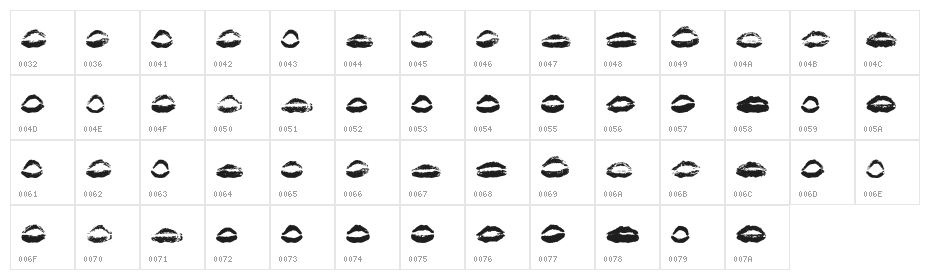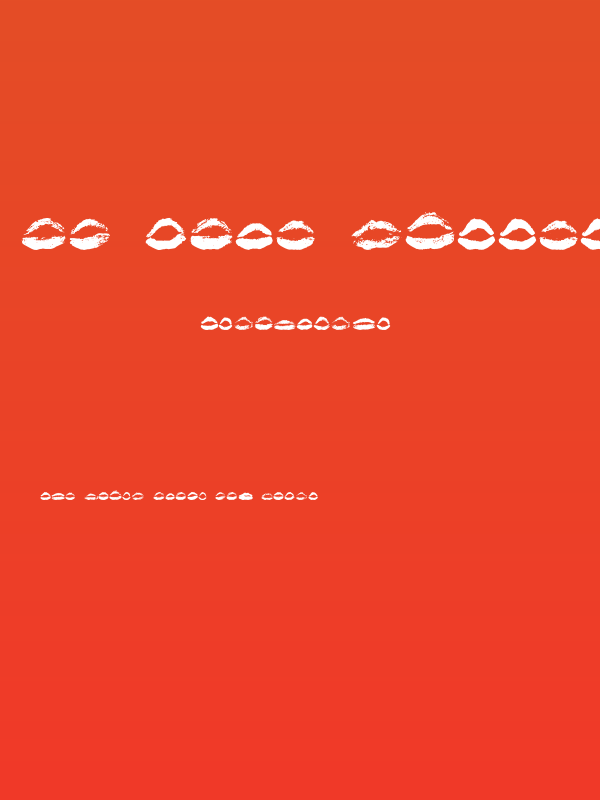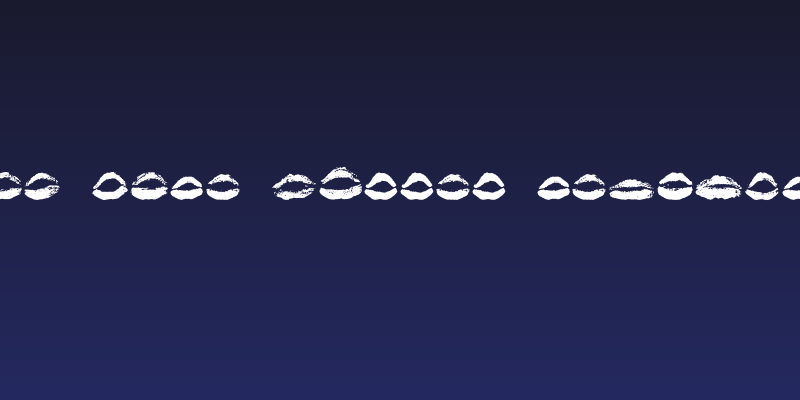
26 More Kisses Regular Font
26 More Kisses Regular Description
This unique and playful font is composed entirely of lip print shapes, creating a whimsical and artistic effect. Each character is represented by a distinct lip imprint, offering a textured and organic appearance. The font is highly decorative, making it ideal for creative projects that require a touch of fun and personality. Its bold and expressive style captures attention, making it suitable for headlines or artistic designs. The irregularity in the prints adds a handmade feel, enhancing its charm and appeal.
| Use Case | Headlines, Artistic designs, Creative projects |
| Proposed Projects | Ideal for greeting cards, fashion branding, playful posters, and artistic invitations. |